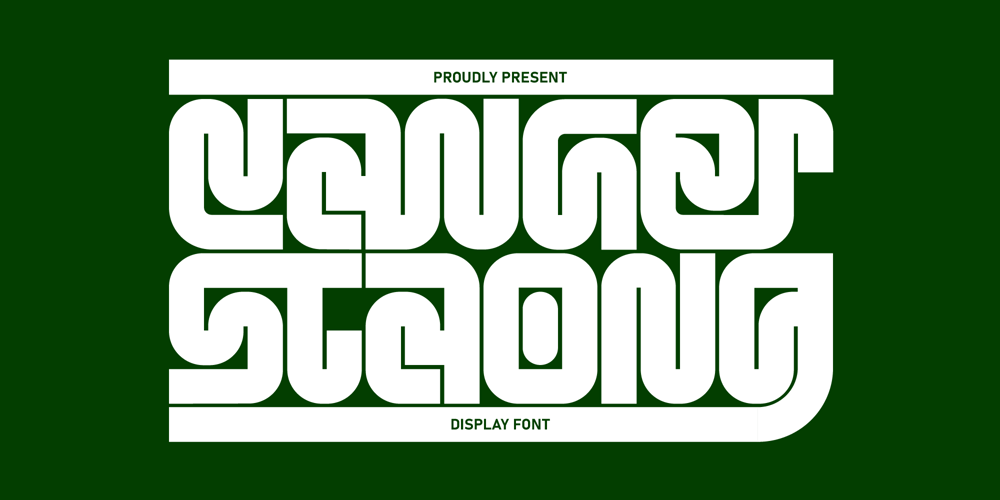
Canger staong Font Family was designed by ryan creative and published by ryan creative. Canger staong contains 1 styles and family package options. Introducing the Canger staong font which has a unique looking design. This font has curved joints like pipes. You can use Canger staong in modern and contemporary designs, and are suitable for use in various media such as stickers, posters, covers, typography and other digital media.-Uppercase.-Foreign Support, Numbers and Punctuation.-Alternates & ligatures-Simple installation.-Accessible in Adobe Illustrator, Adobe Photoshop. Adobe InDesign, it even works in Microsoft Word.